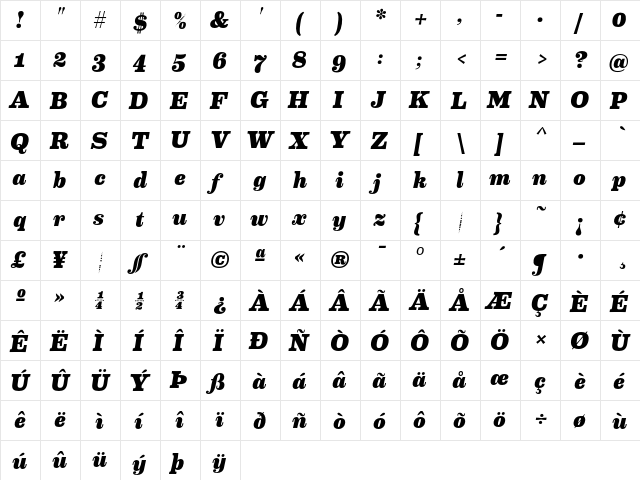
Eames Century Modern Extra Bold Italic Font Preview
| Foundry | House Industries |
| Designer | Erik van Blokland |
| Year | 2010 |
Design Context for Eames Century Modern Extra Bold Typeface
Eames Century Modern Extra Bold takes a measured approach to typography — its balanced proportions and neutral character make it a reliable workhorse for both digital and print work. The dynamic lean of this cut emphasises speed and emphasis in any layout. The heavy weight commands attention and anchors typographic hierarchies.
Pro Tip: Try Eames Century Modern Extra Bold for annotation and caption copy alongside an upright companion — the contrast in angle creates a dynamic but ordered typographic system.